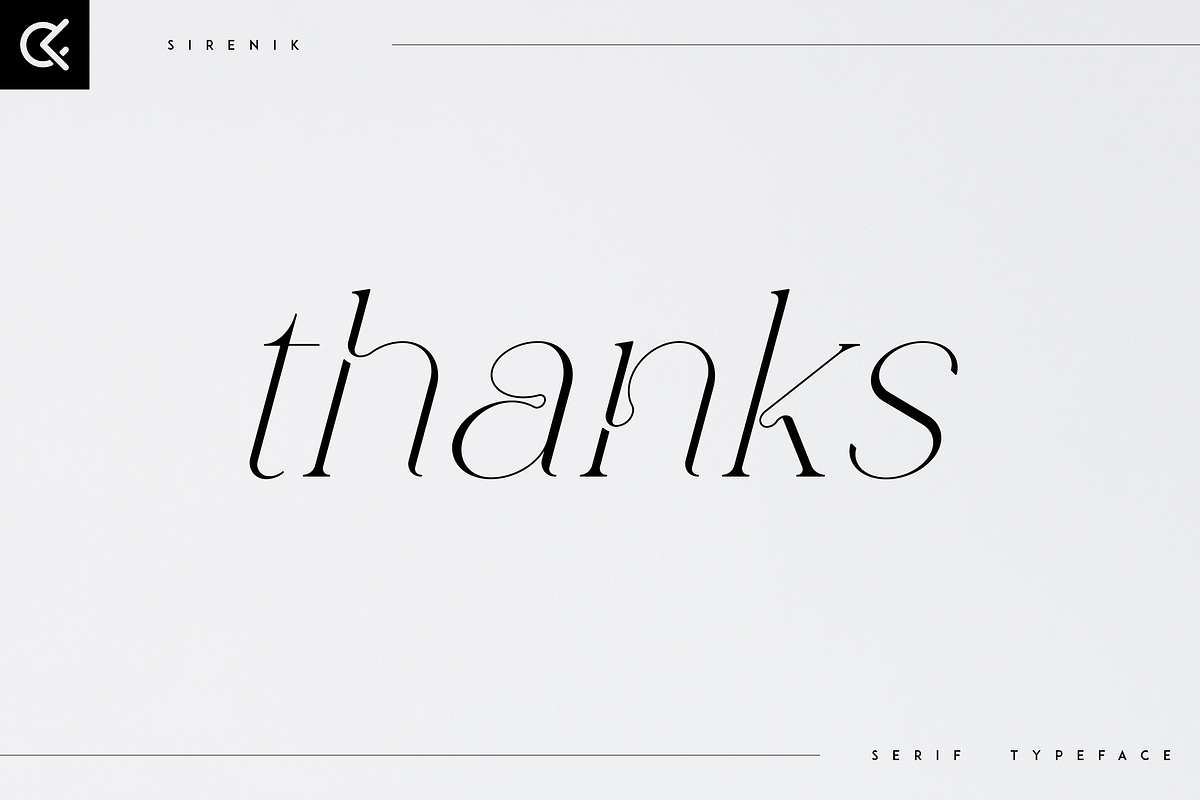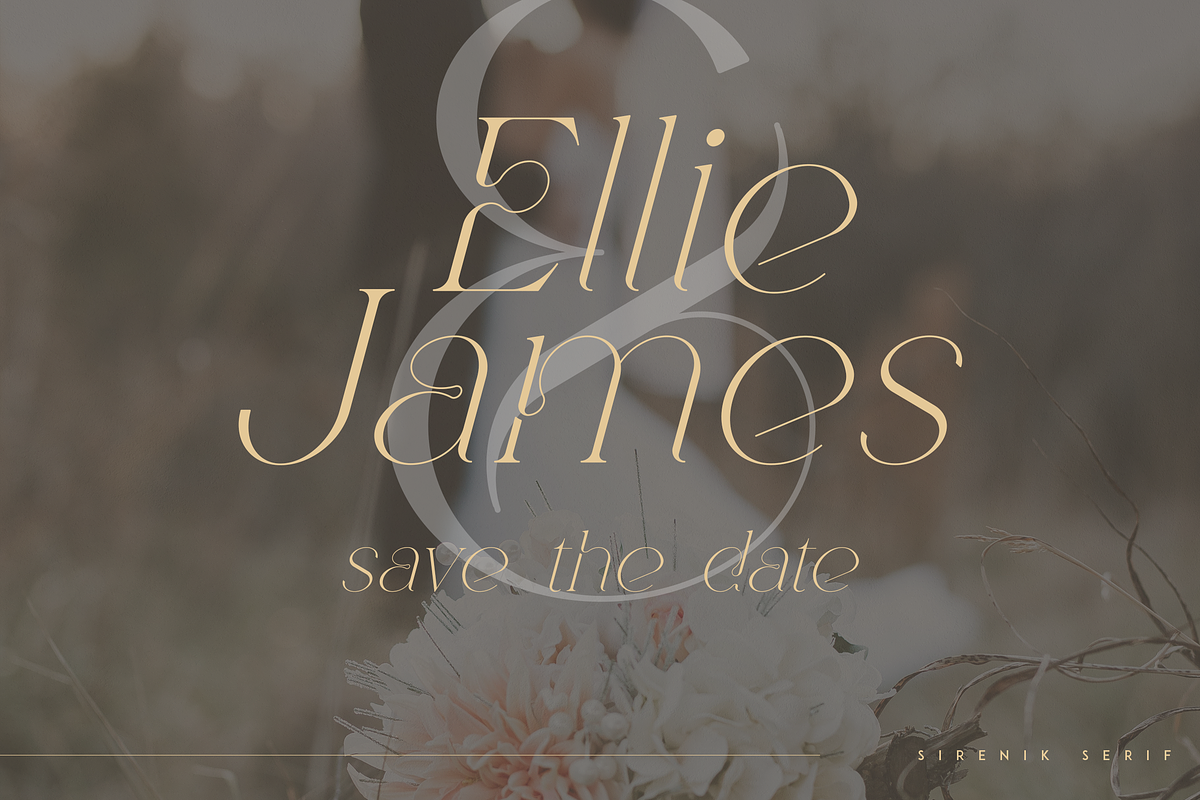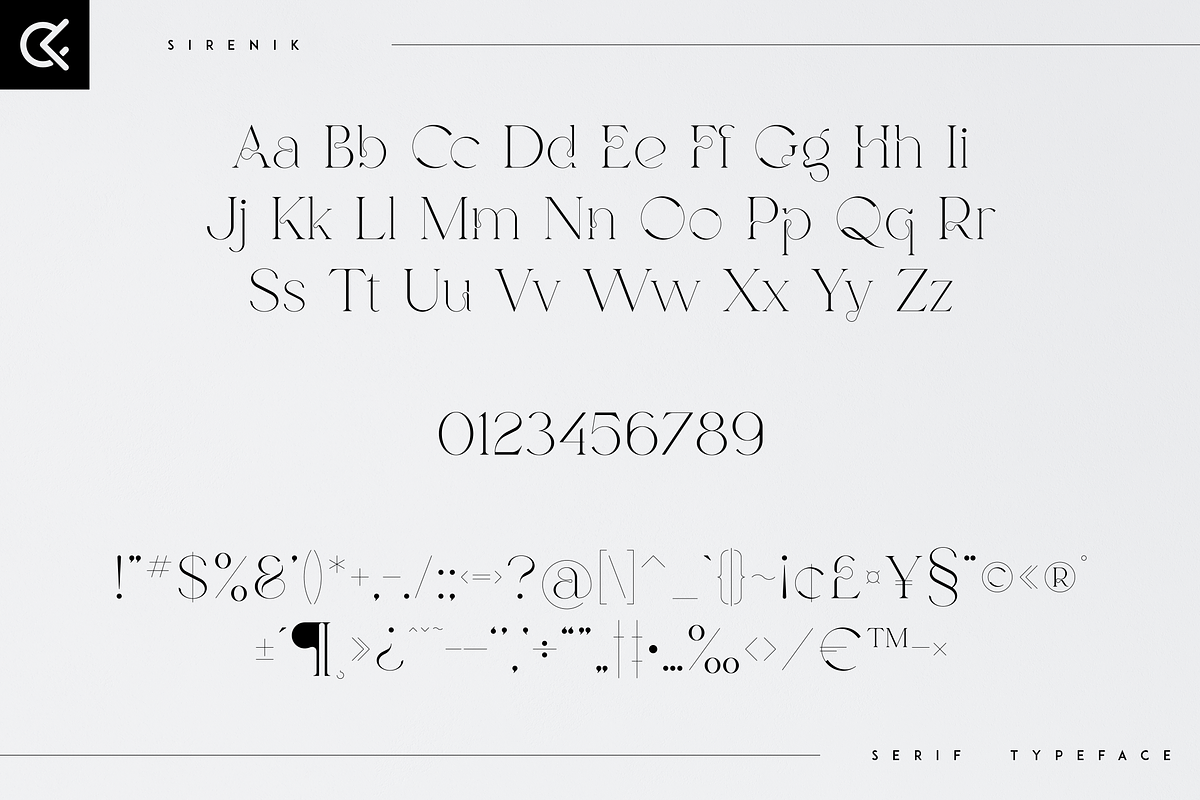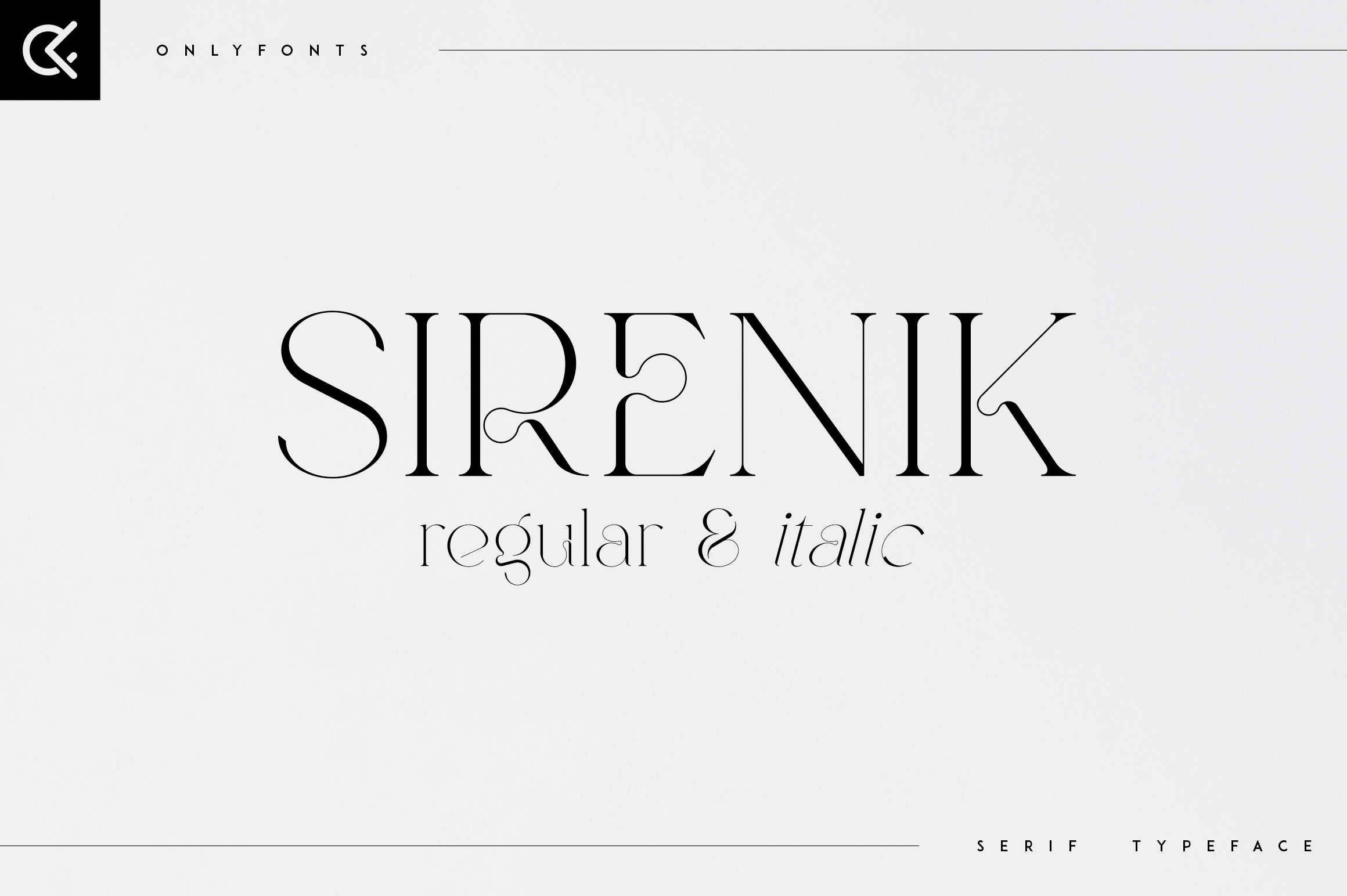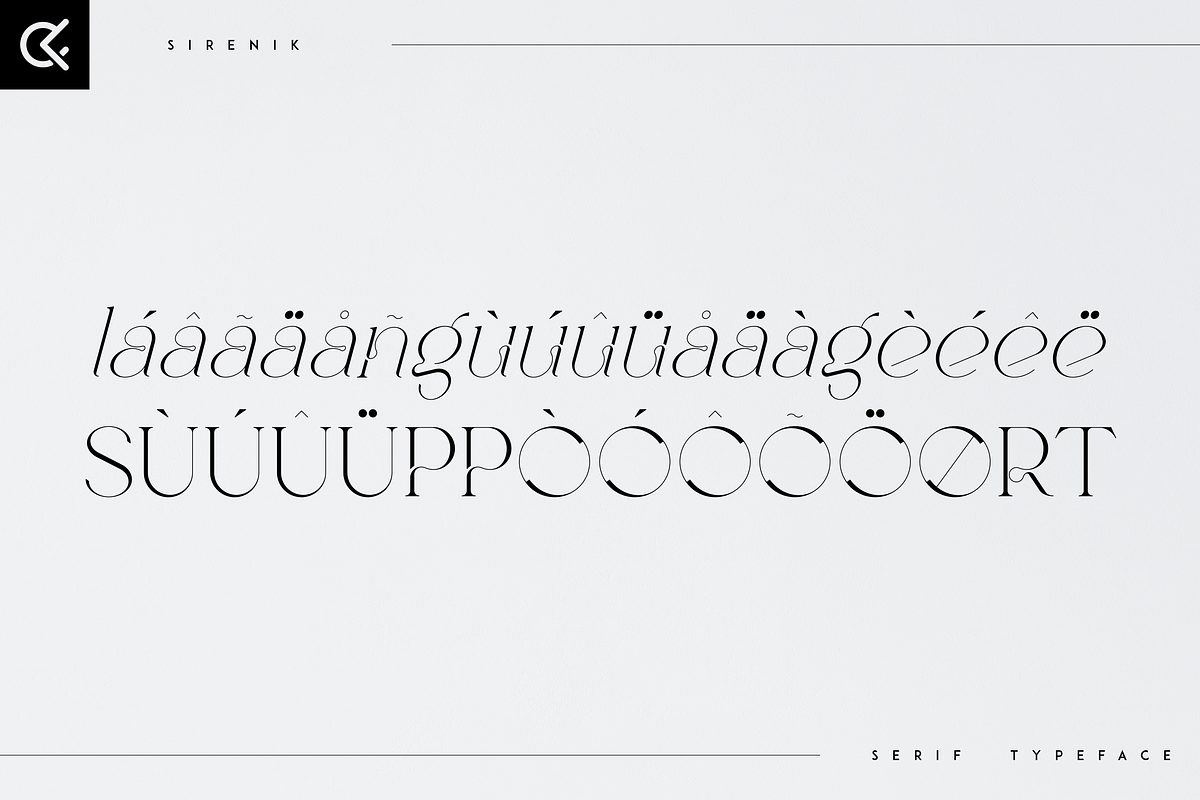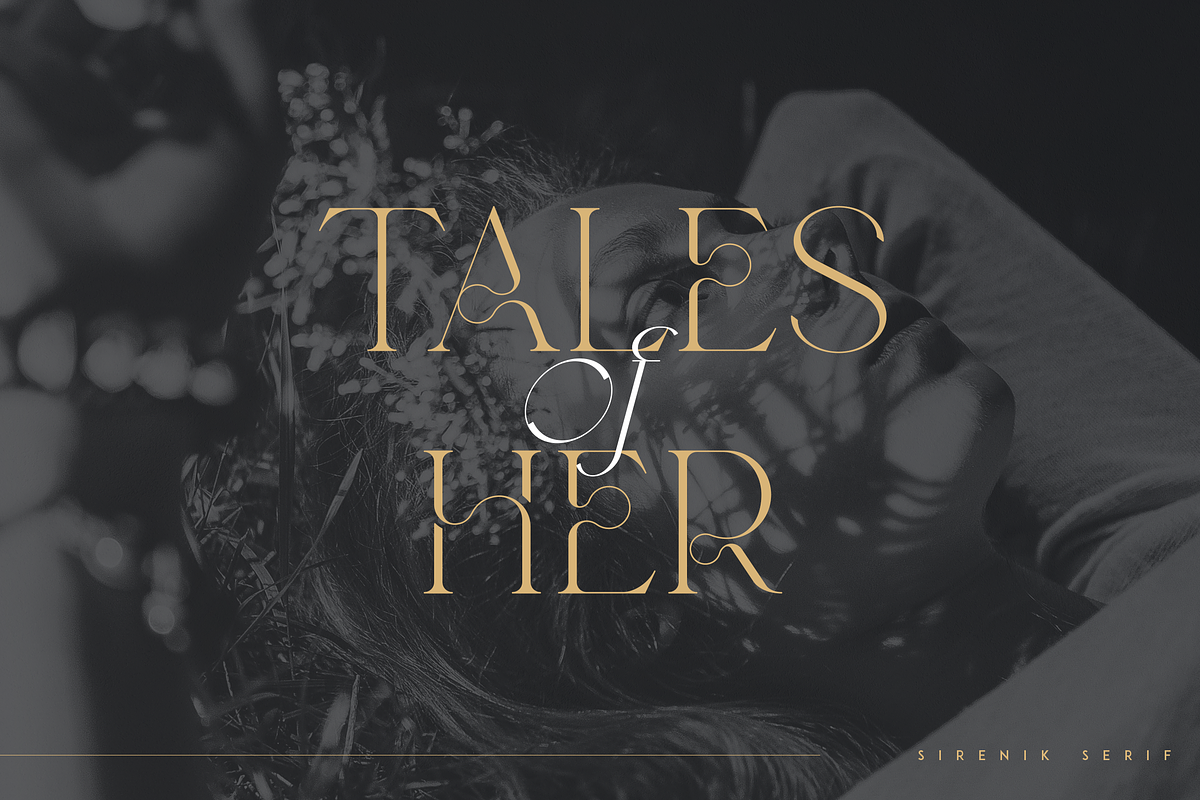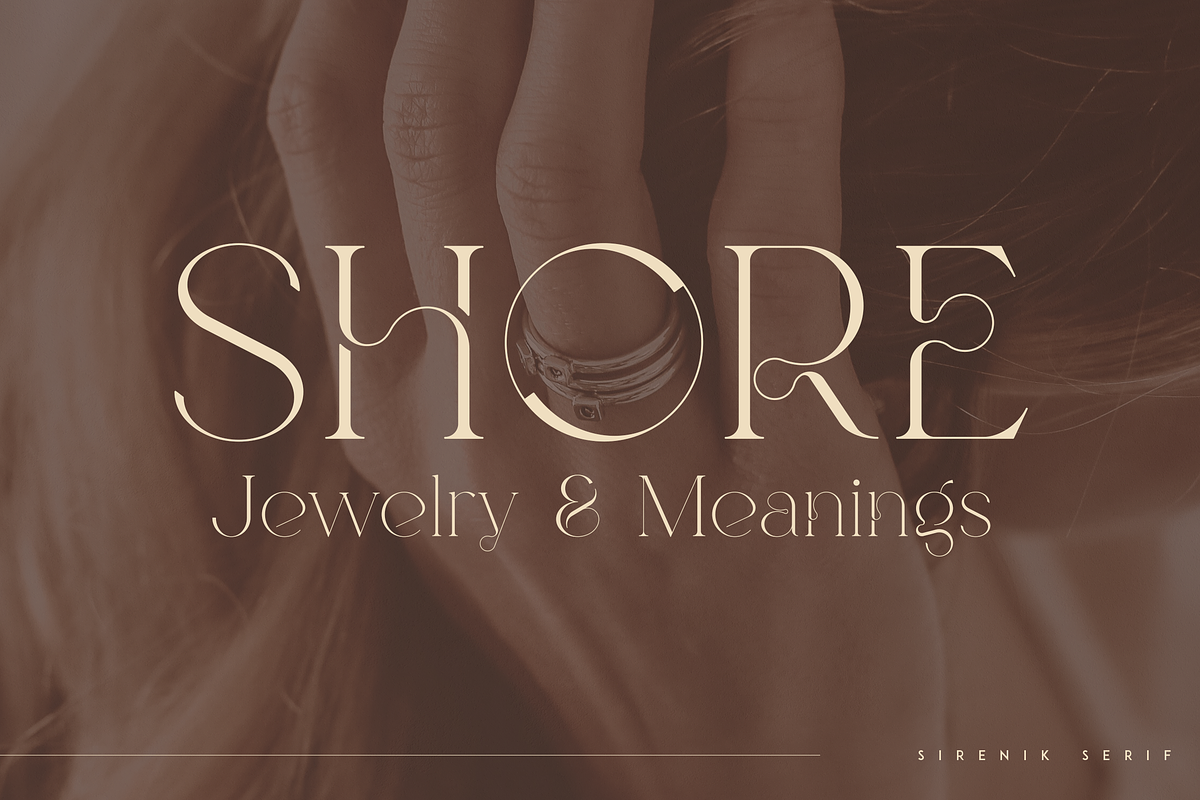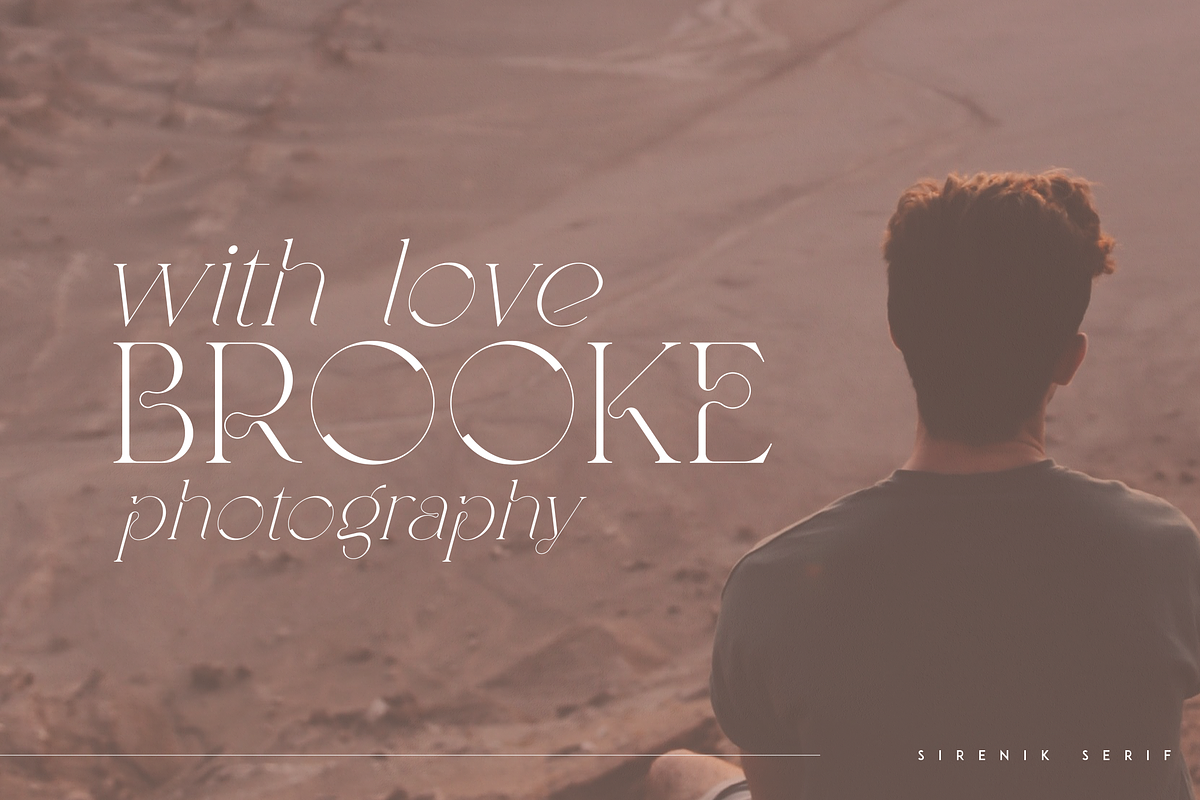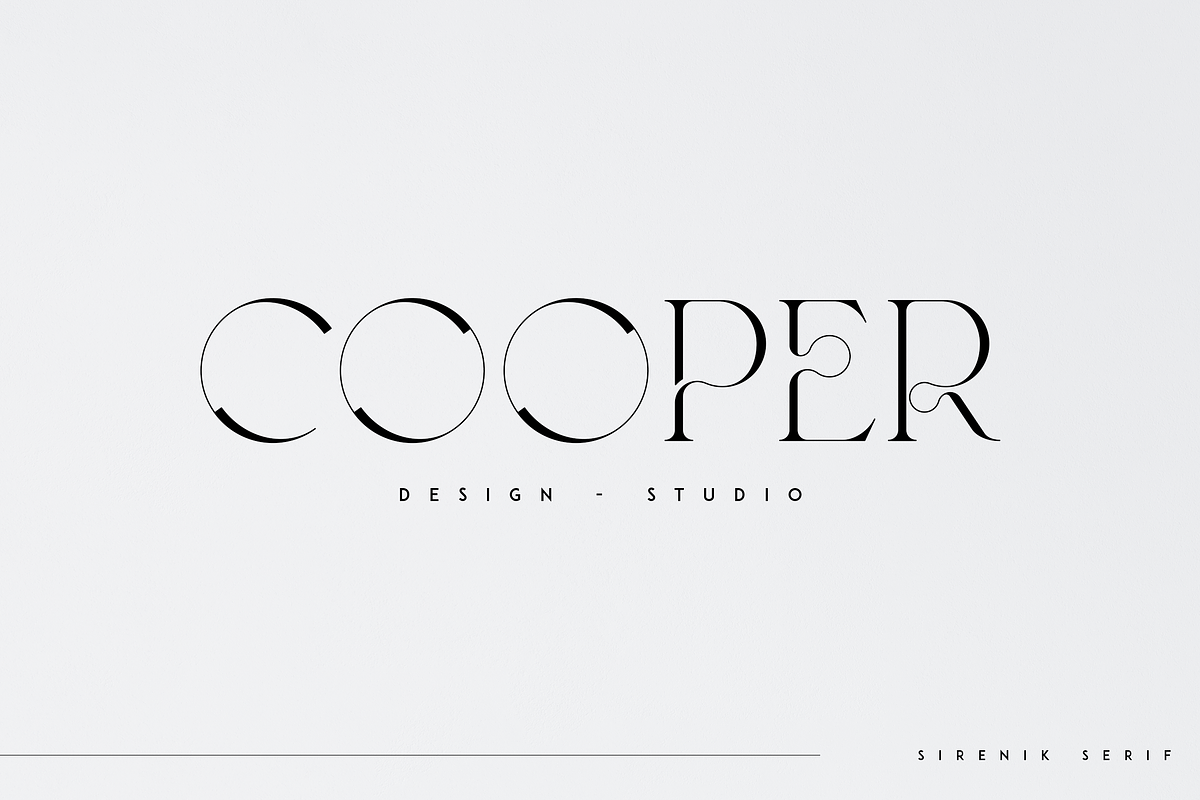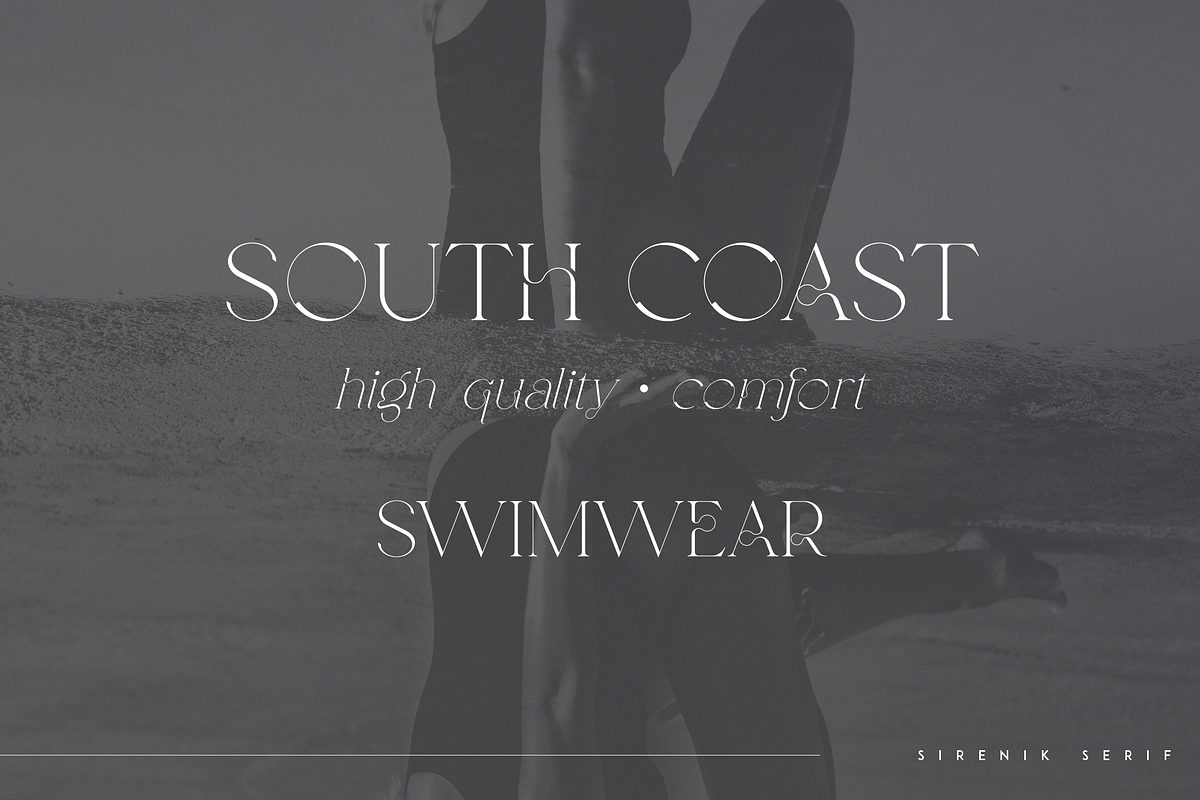
Sirenik - elegant serif typeface
Introducing Sirenik - Elegant serif font
Sirenik is creative and sophisticated font with multilingual support. It's a very versatile font that works great in large and small sizes.
This font is perfect for branding projects, home-ware designs, product packaging, magazine headers - or simply as a stylish text overlay to any background image.
- Uppercase, lowercase, numeral, punctuation & Symbol
- regular and italic versions